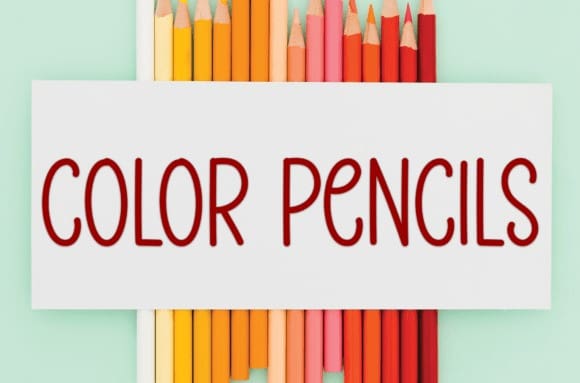
Babe Chubby Font
Babe Chubby Font is a sweet and friendly handwritten font. Cute and fun, this font is ideal for writing wedding invitations, cards, or any other design that might need a fun touch!